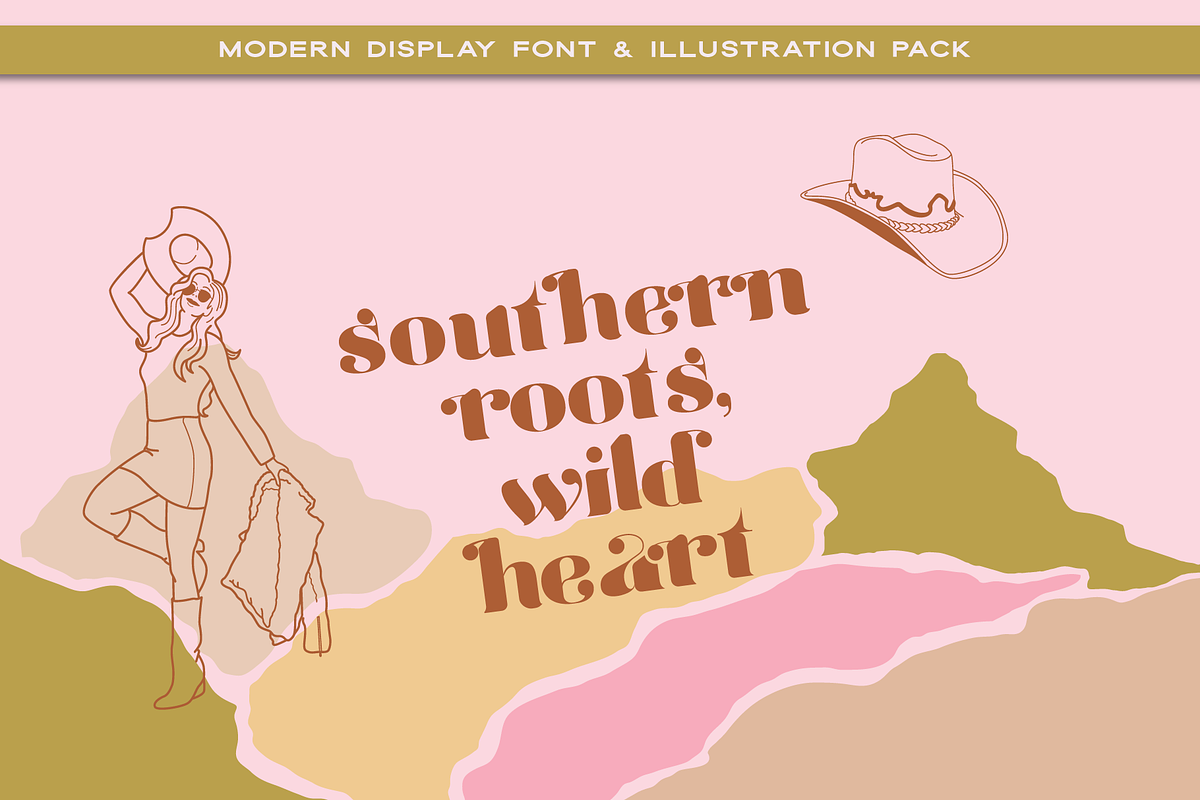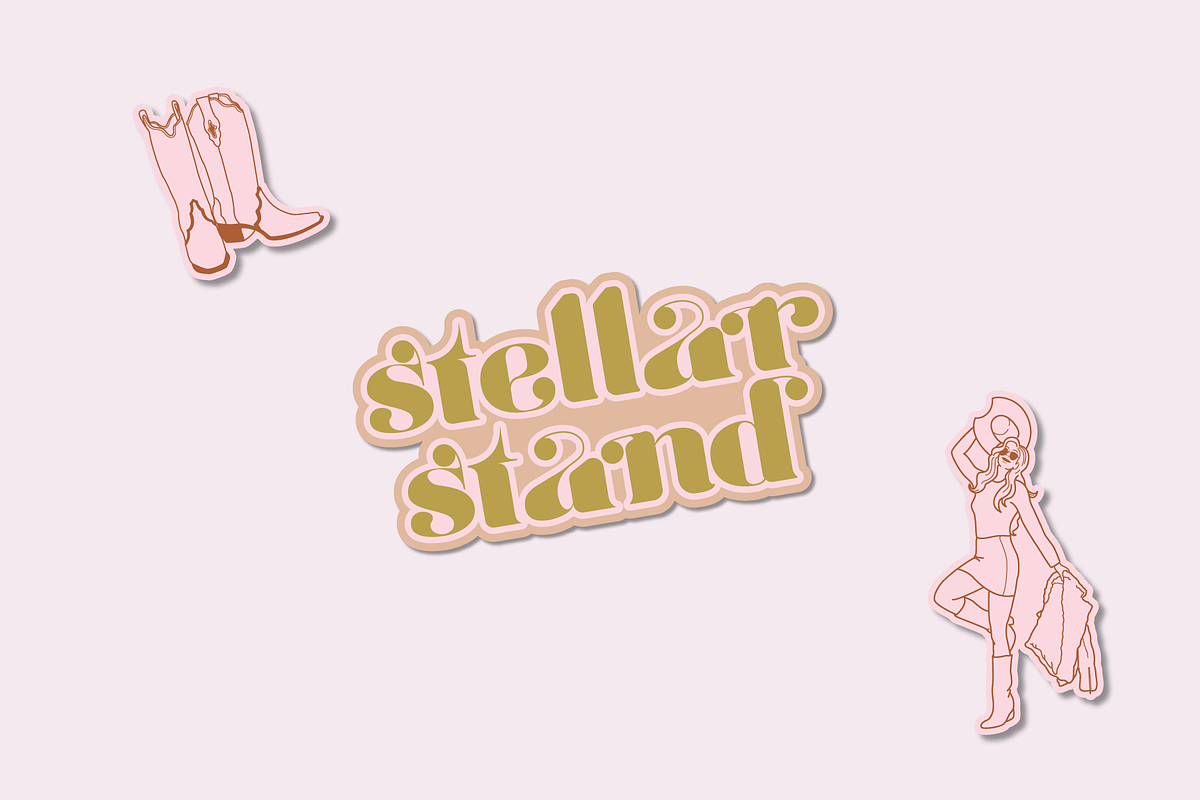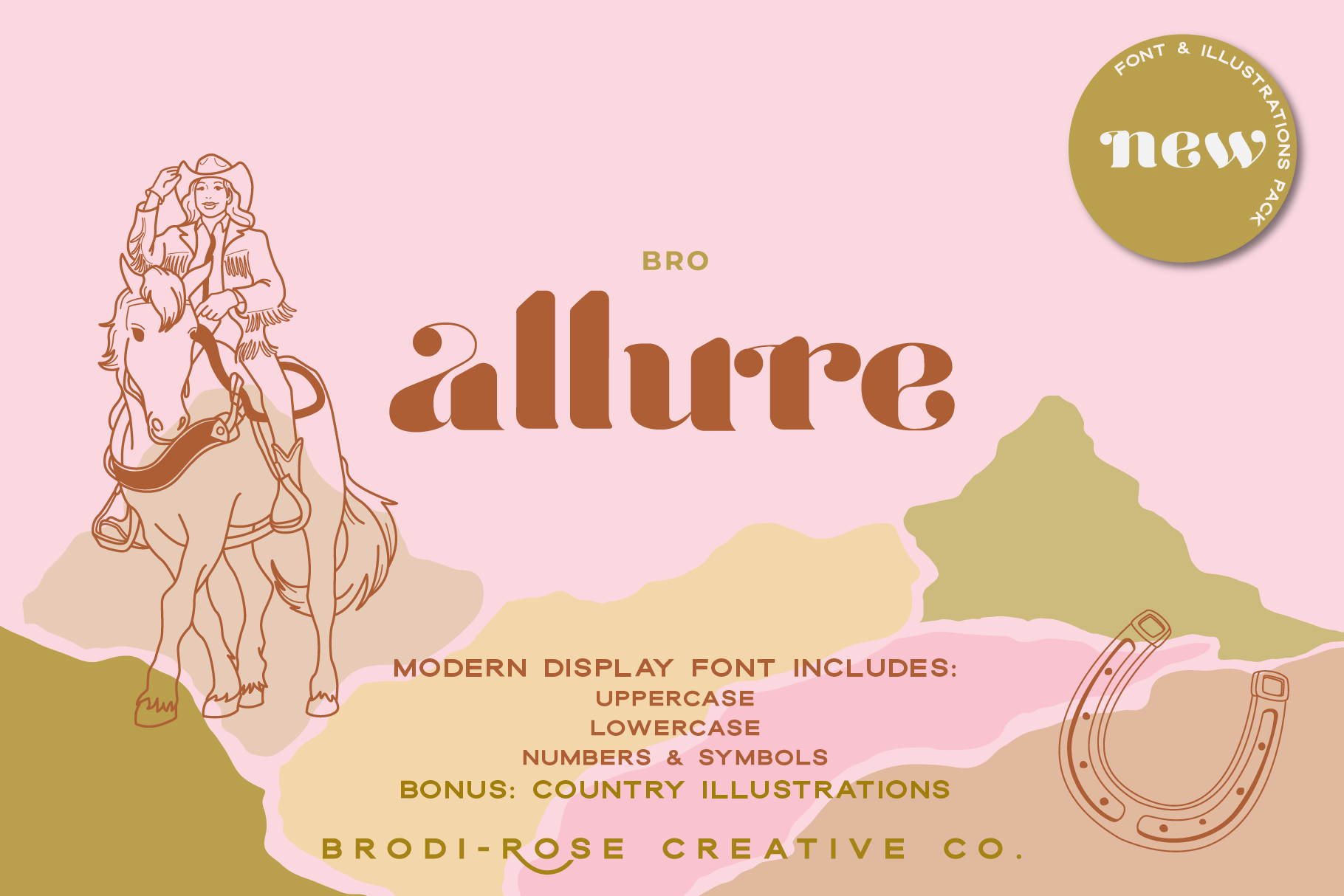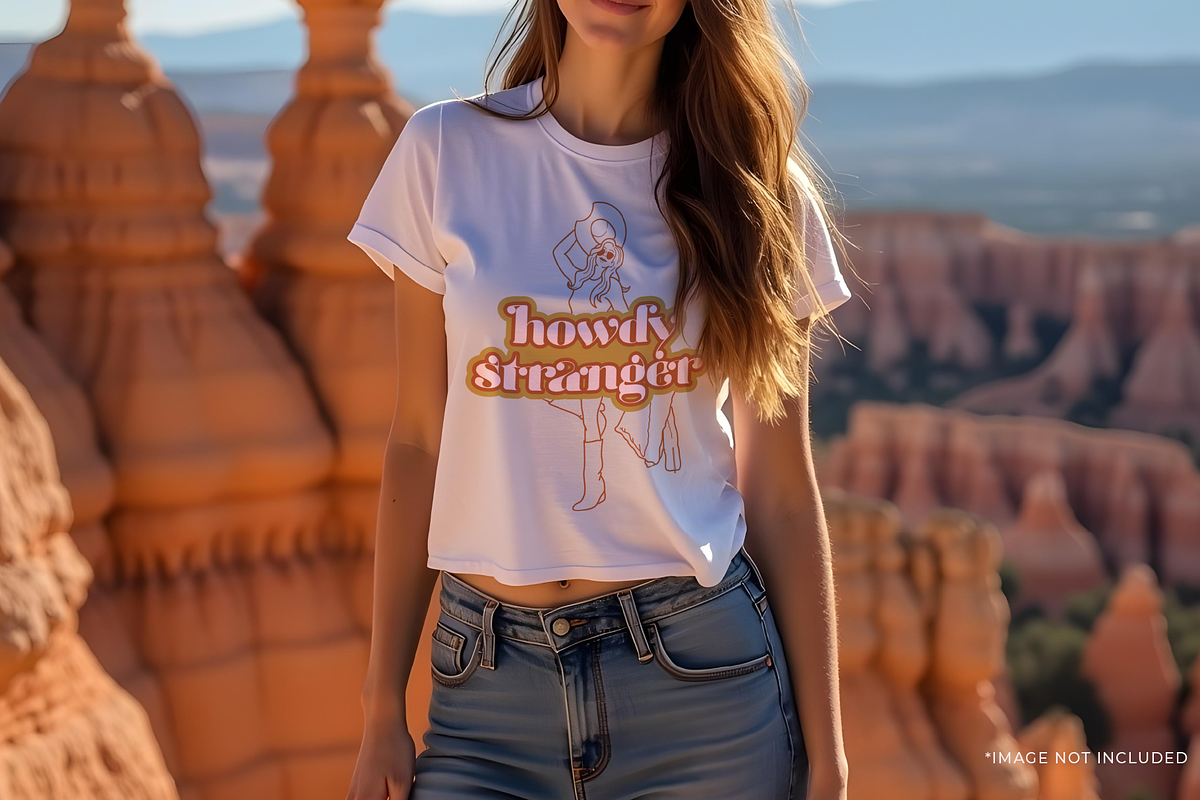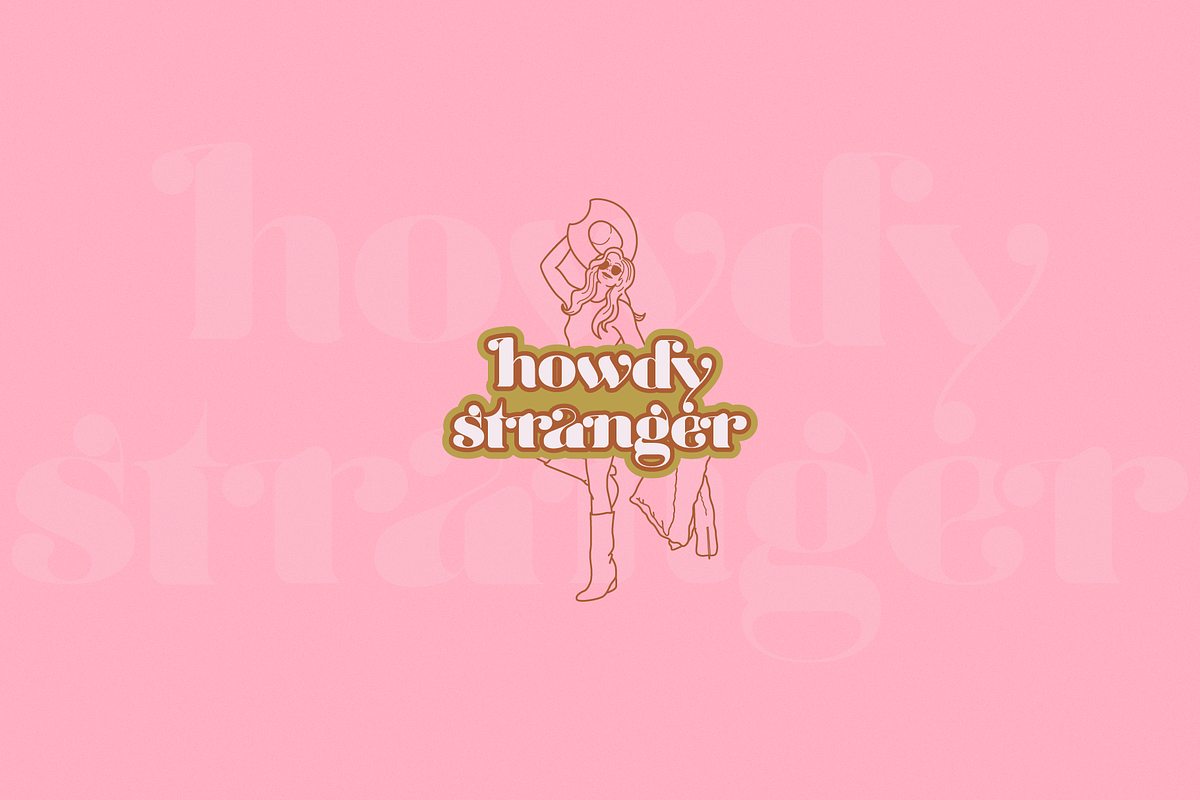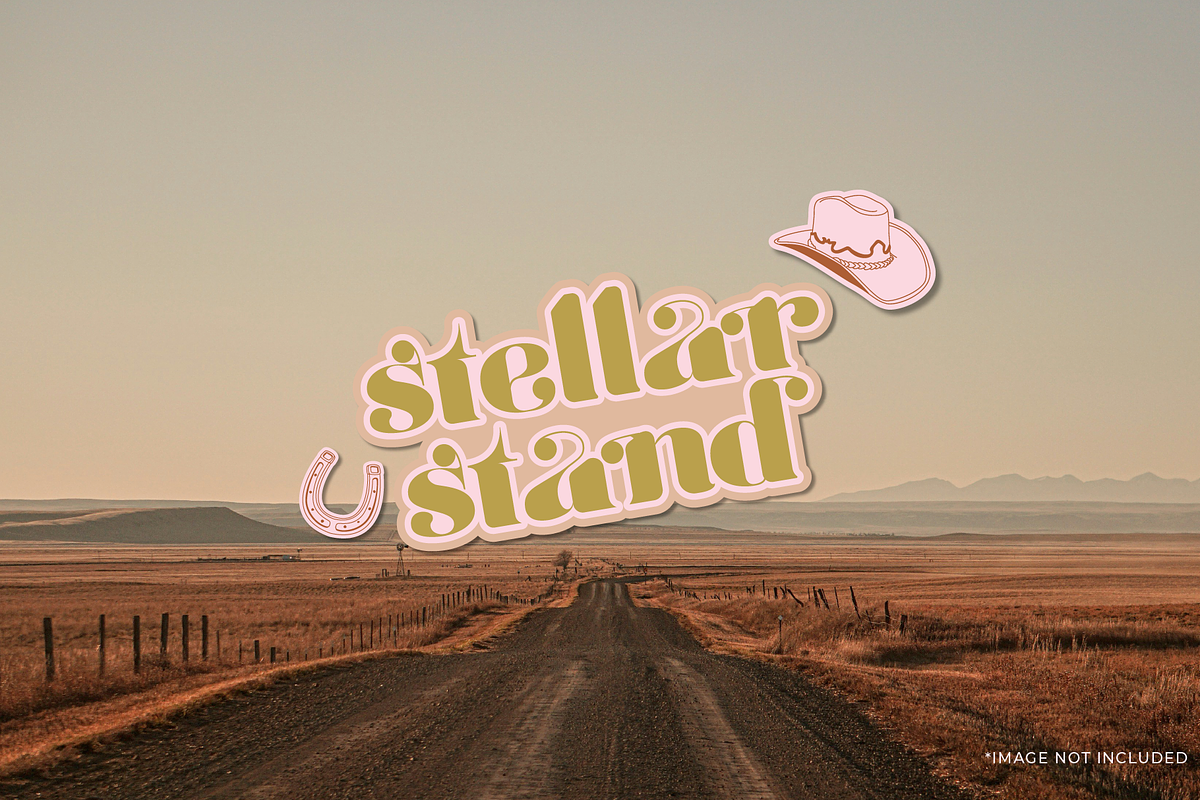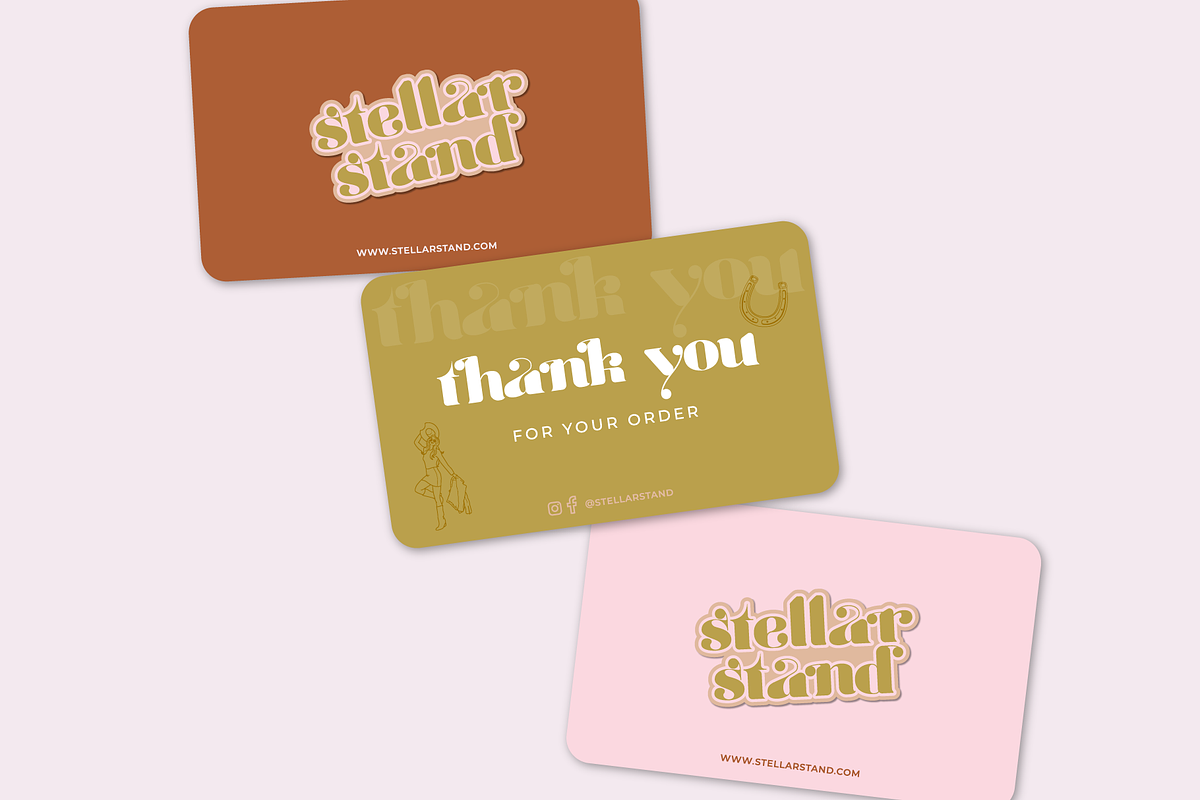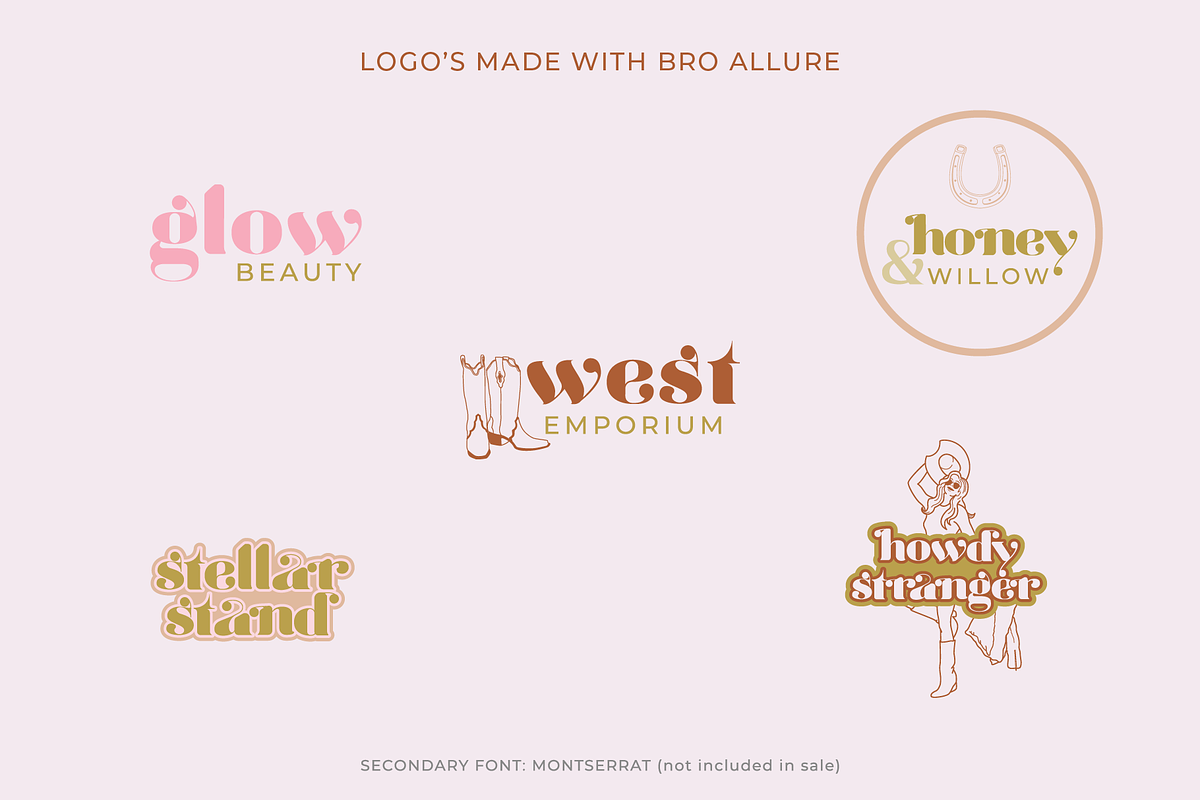
BRO Allura- Modern Bold Display Font
BRO Allure: A Modern Display Font + BONUS country illustrations
Introducing BRO Allure - a modern, feminine, bold display font that is perfect for your next project. This contemporary font pack also includes a set of vector Western Illustrations, perfect for any country/western style project. Or, use separately to the font.
- Uppercase Characters
- Lowercase Characters
- Numbers 0-9
- Some Symbols (as shown in images)